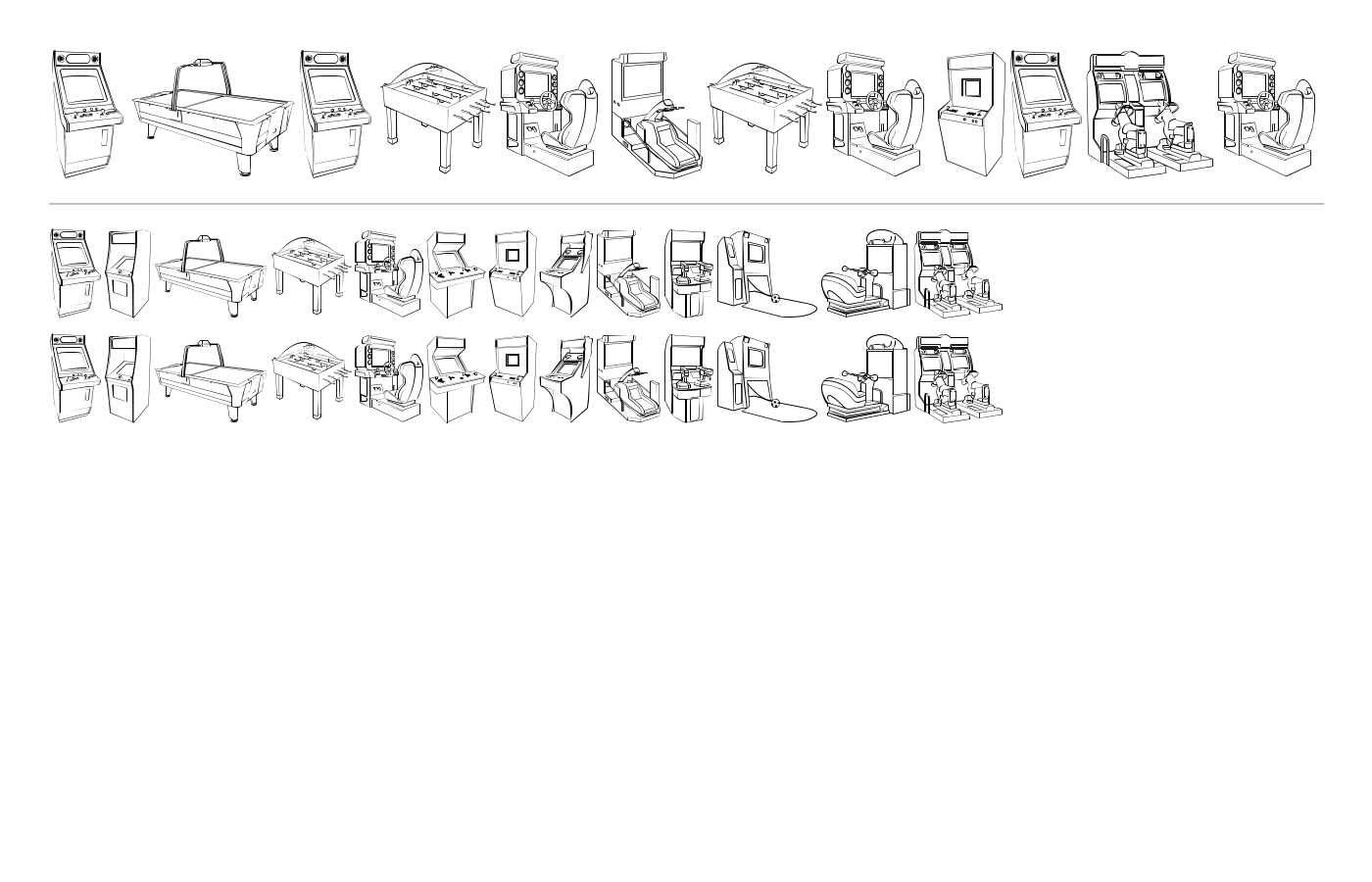
Arcade Video Games is a unique pictorial font featuring detailed line art illustrations of classic arcade machines and gaming equipment instead of traditional letters. This distinctive and playful style brings a nostalgic, retro video game vibe perfect for creative, gaming-related branding, posters, and digital media. Its use of finely drawn, recognizable arcade imagery makes it ideal for eye-catching headlines or themed designs that celebrate vintage gaming culture.
Arcarde Video Games Font
About Arcarde Video Games Font